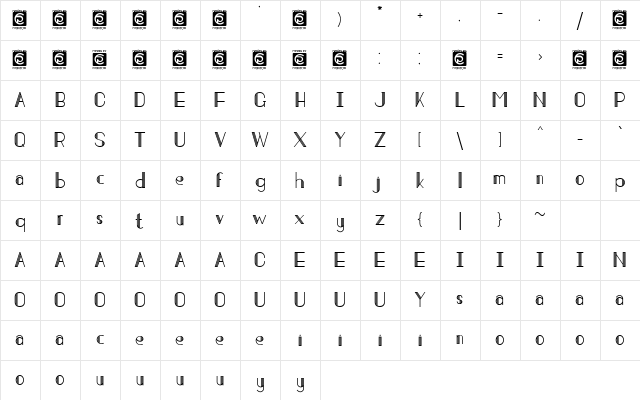
Strip Deco Free
| Foundry | Putracetol Studio |
| Designer | Putra Novembria Candra Kusuma |
Design Context for Strip Deco Typeface
Strip Deco is a composed and adaptable typeface that performs quietly and consistently across a wide range of design contexts.